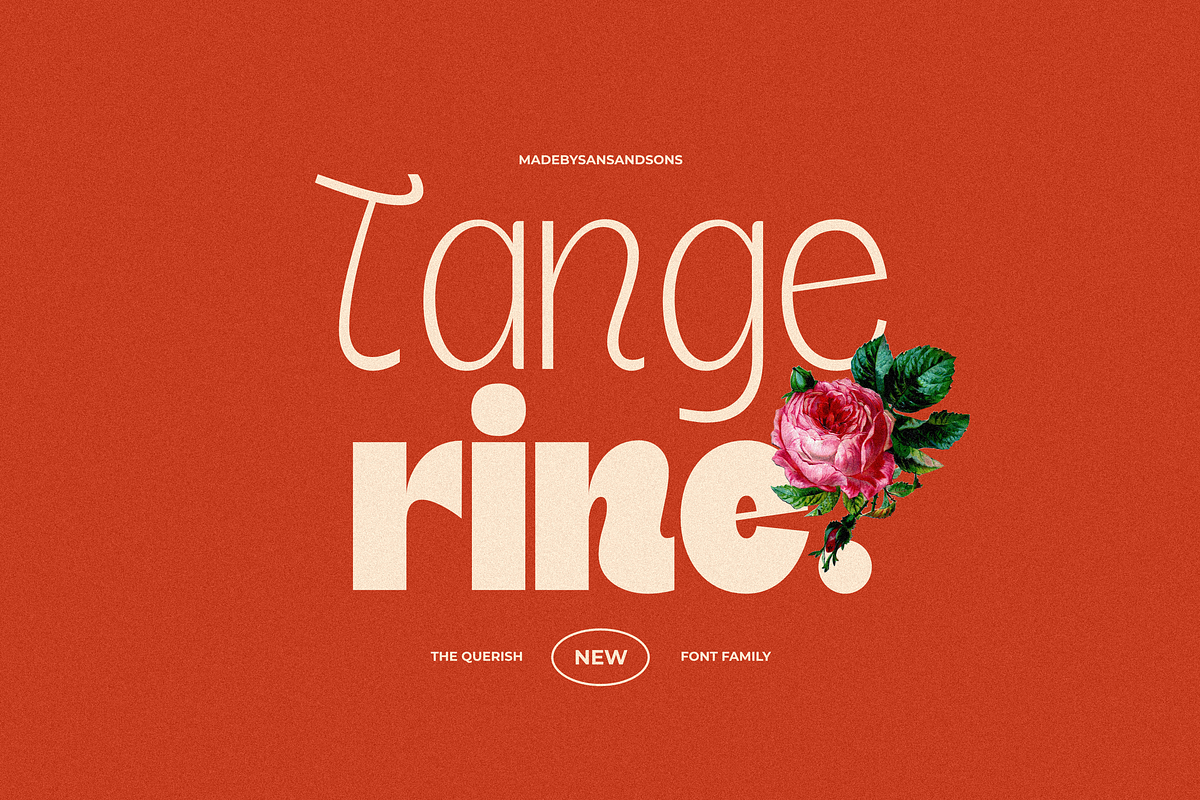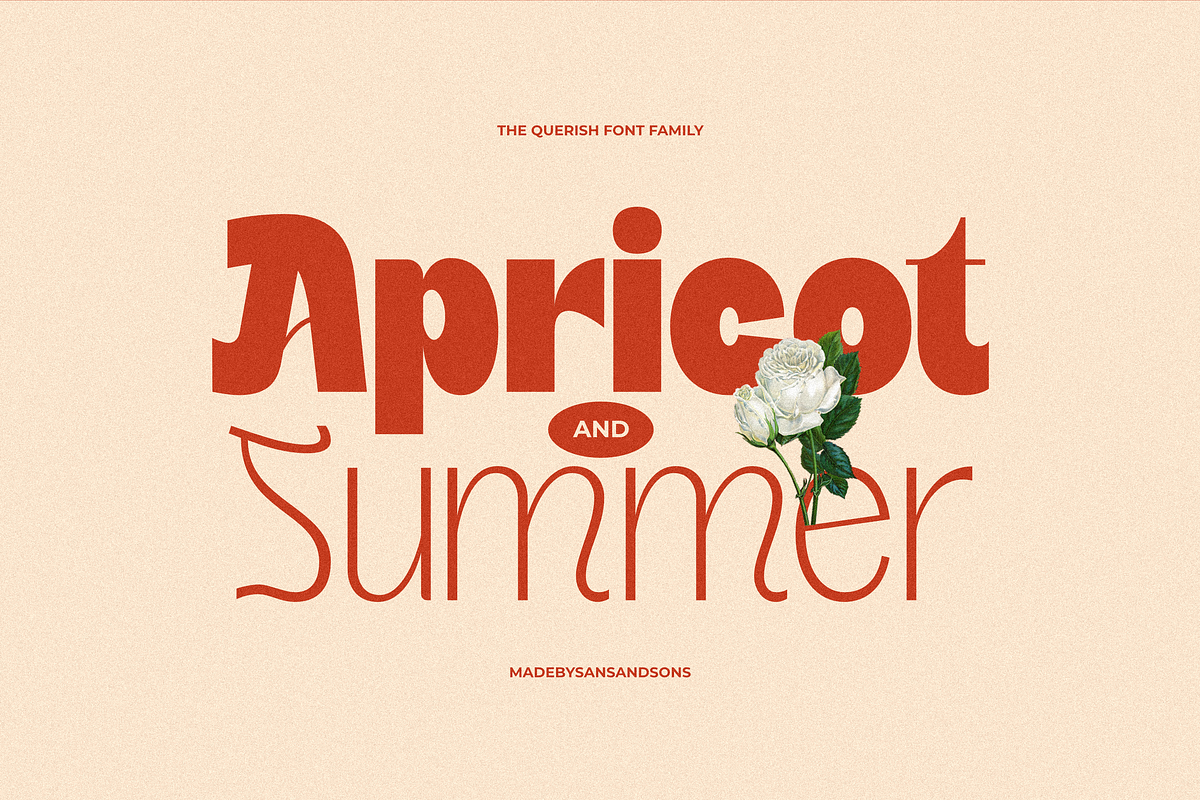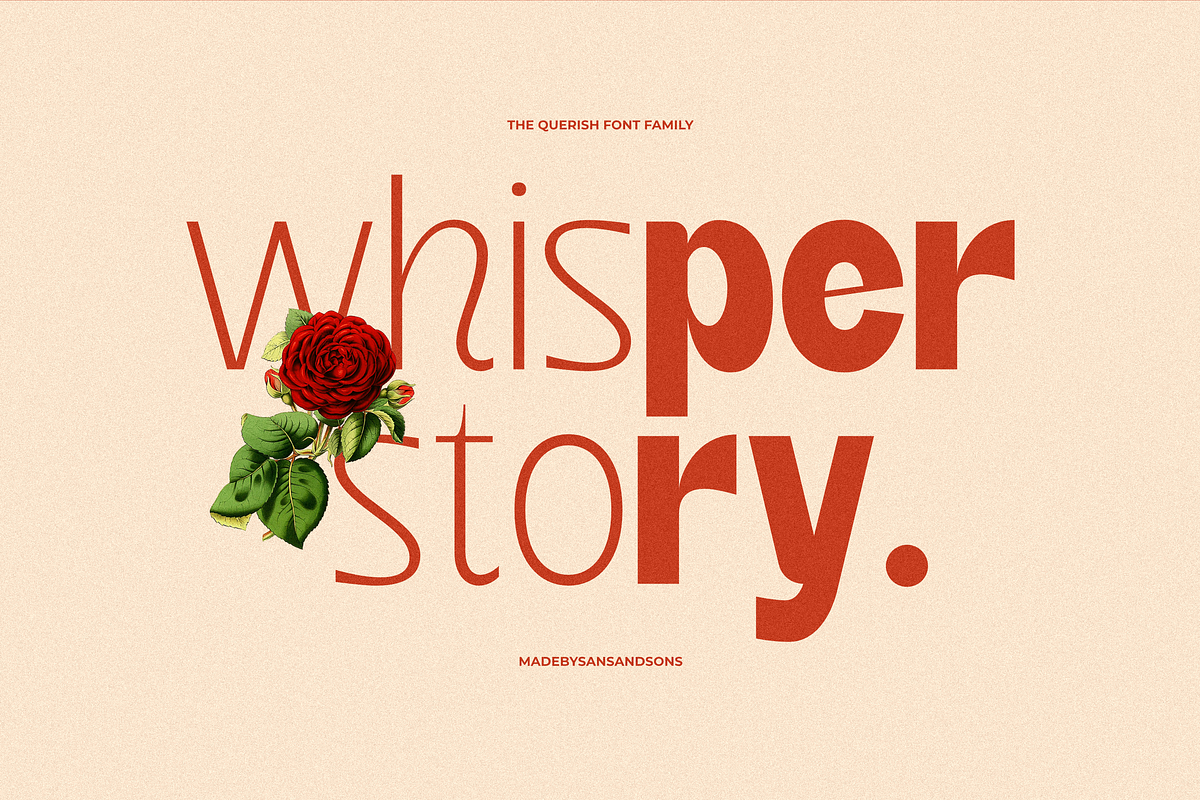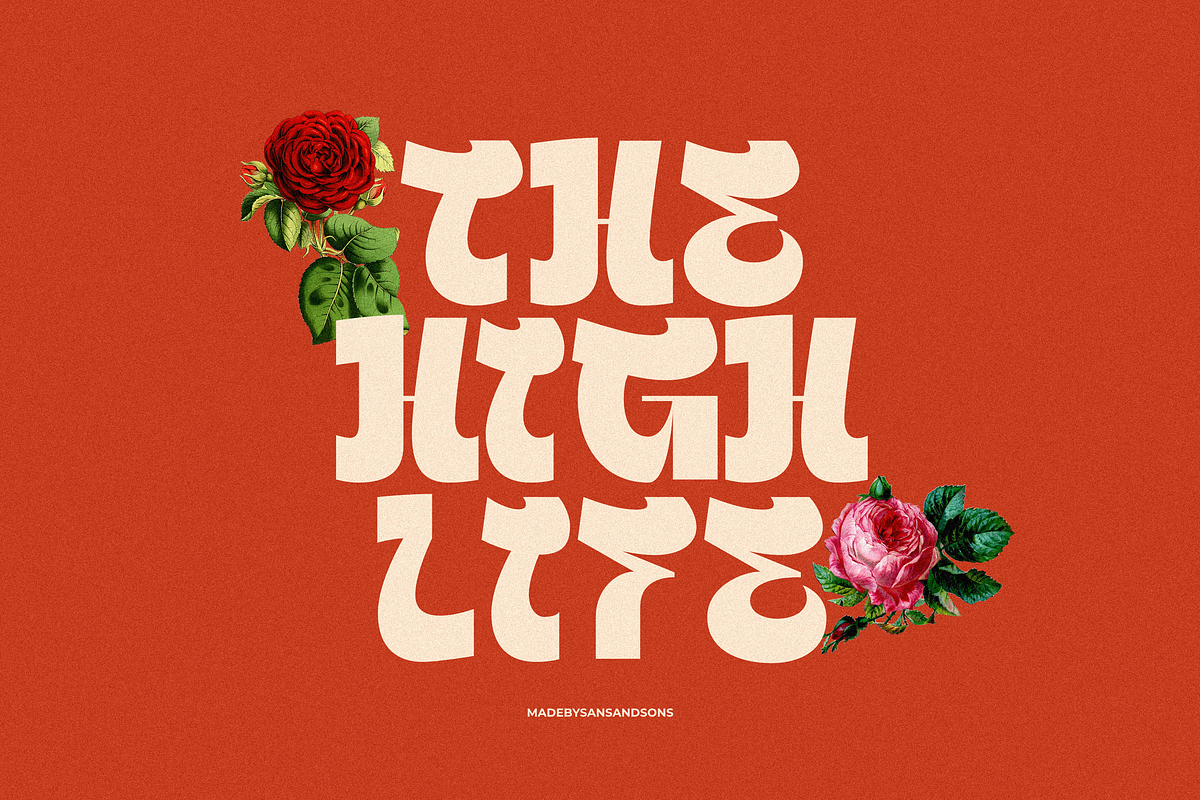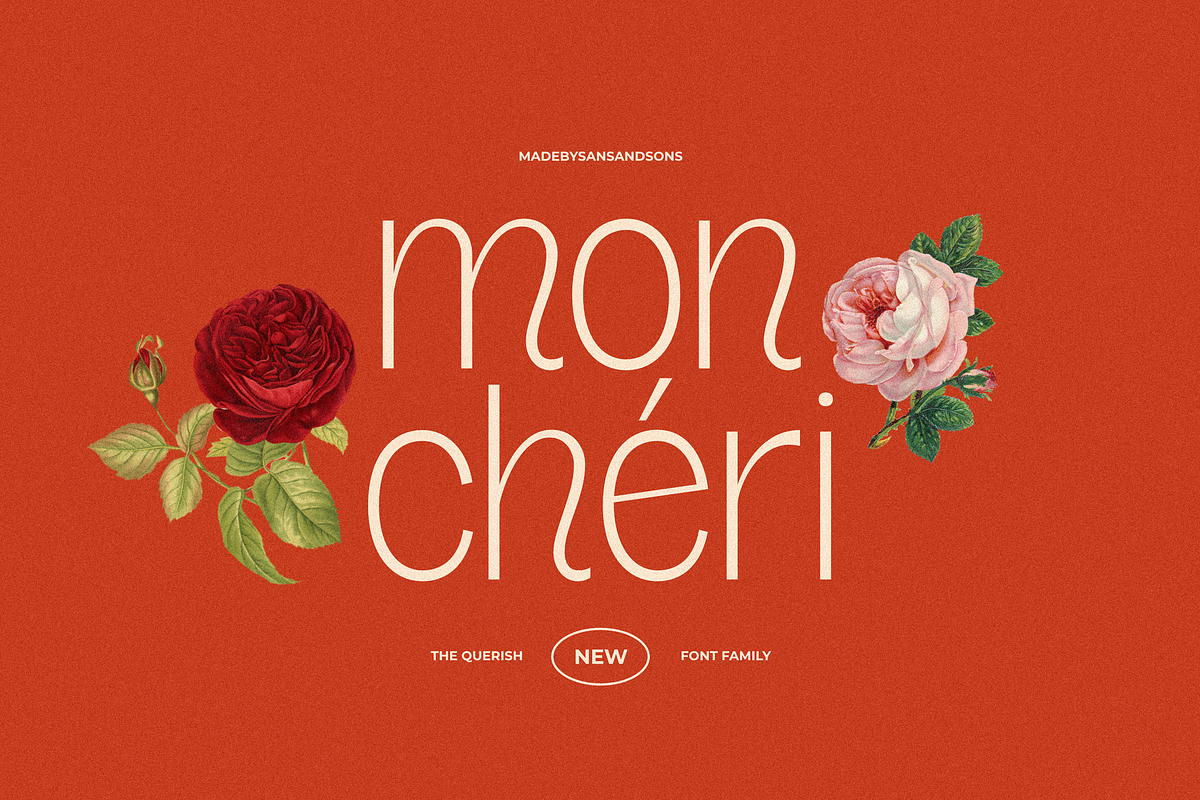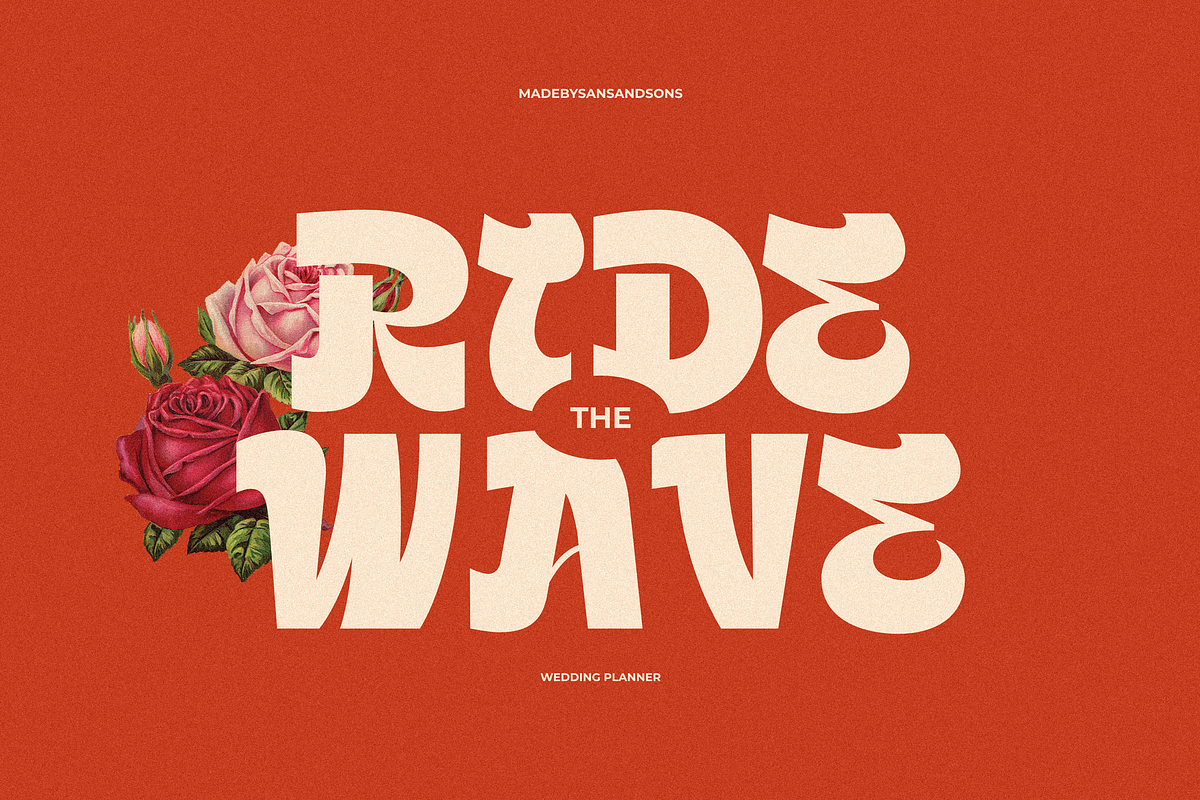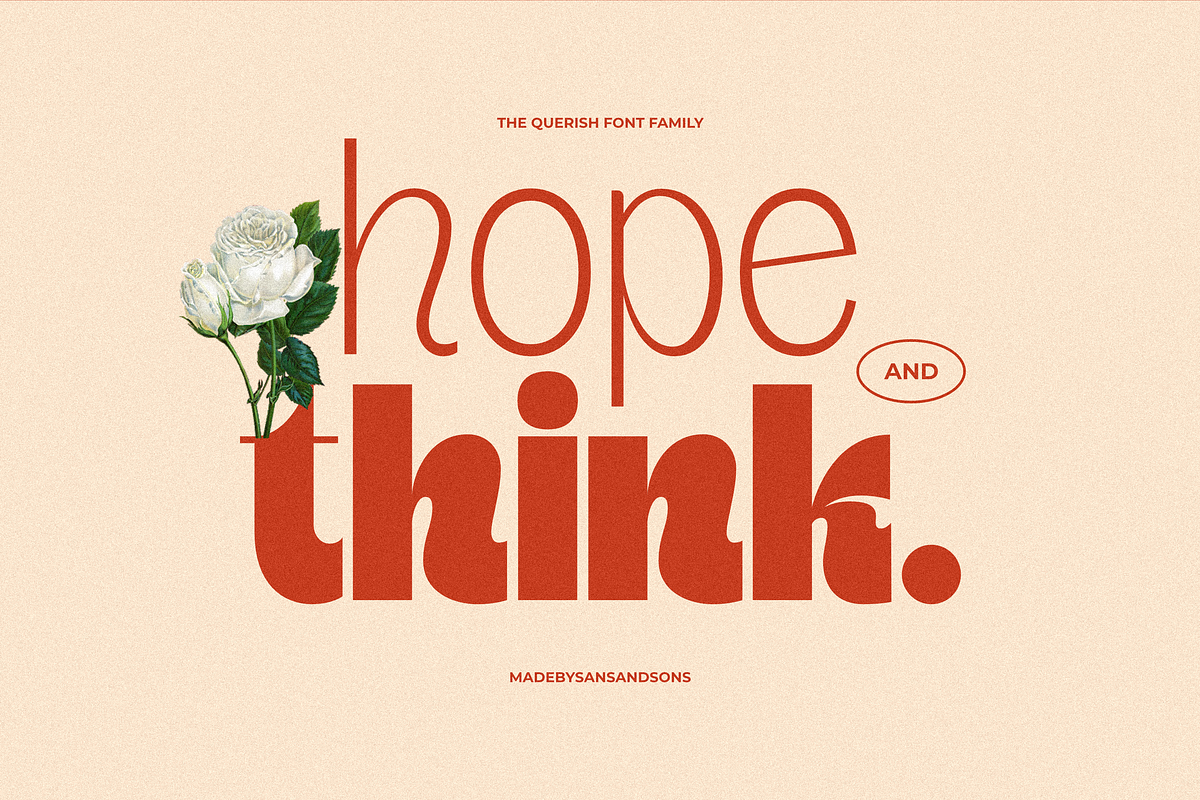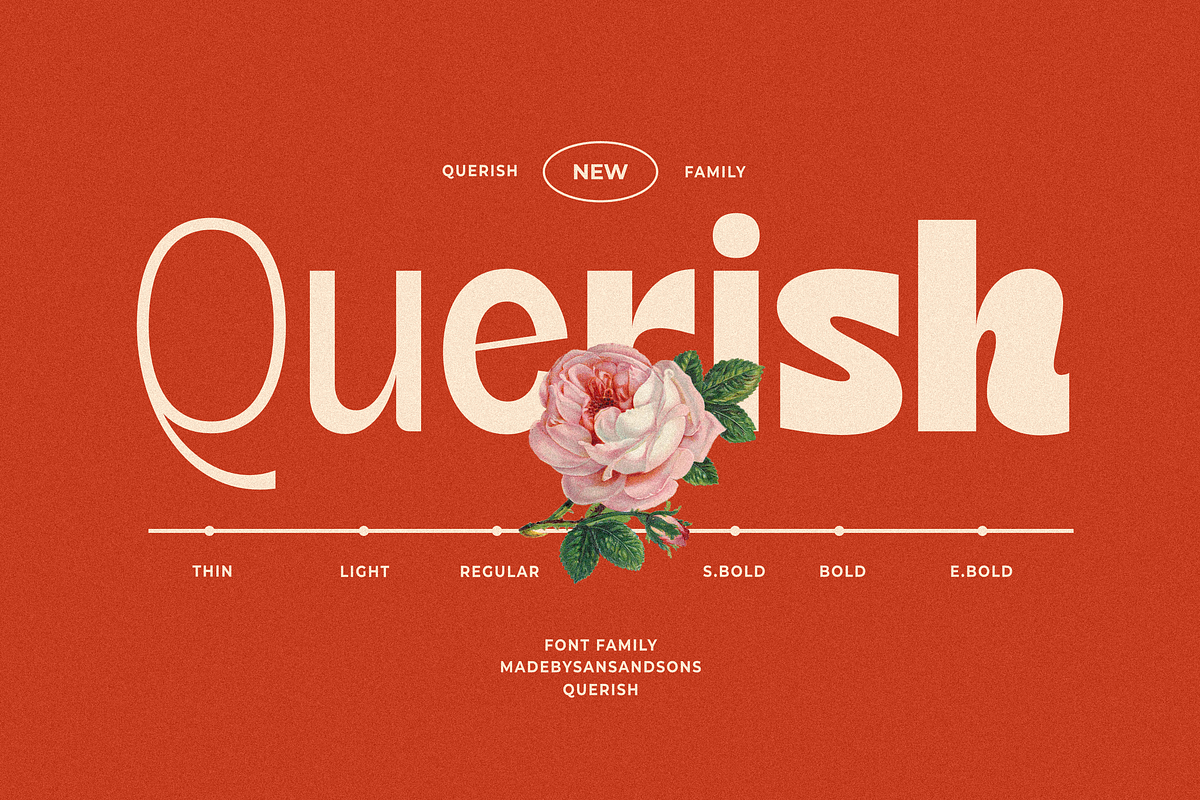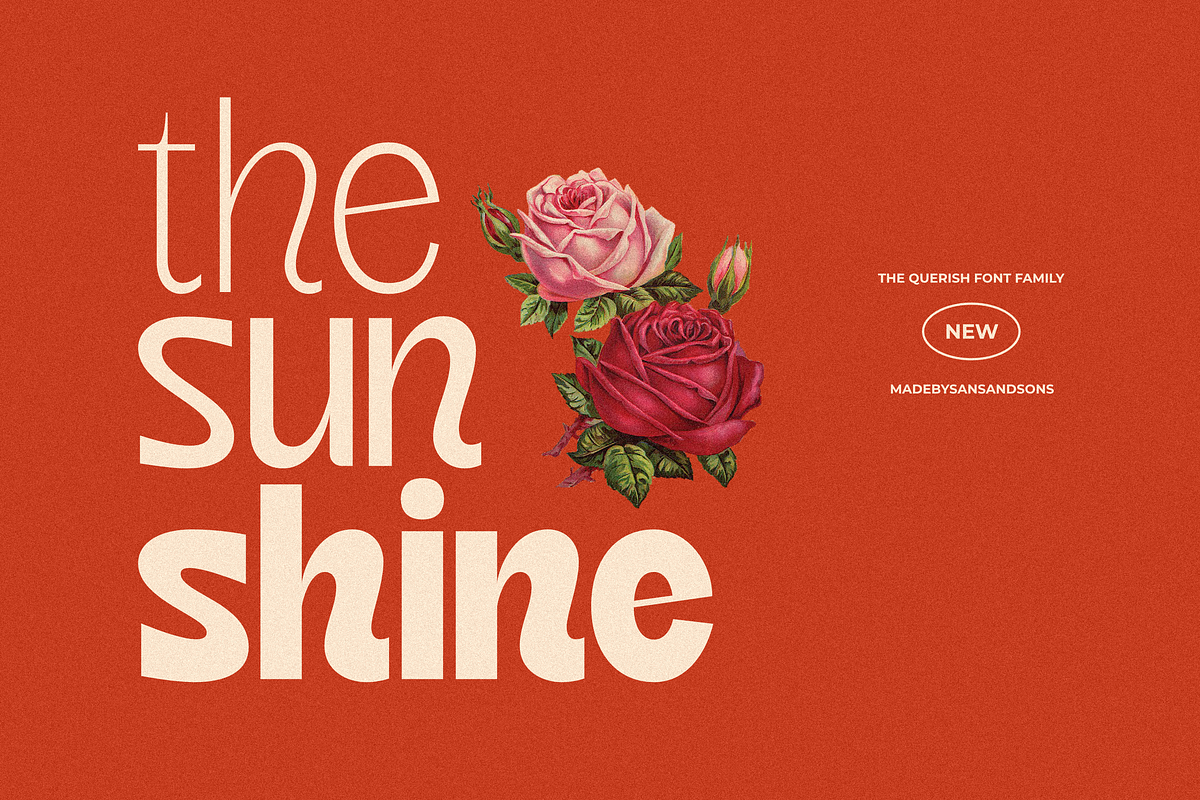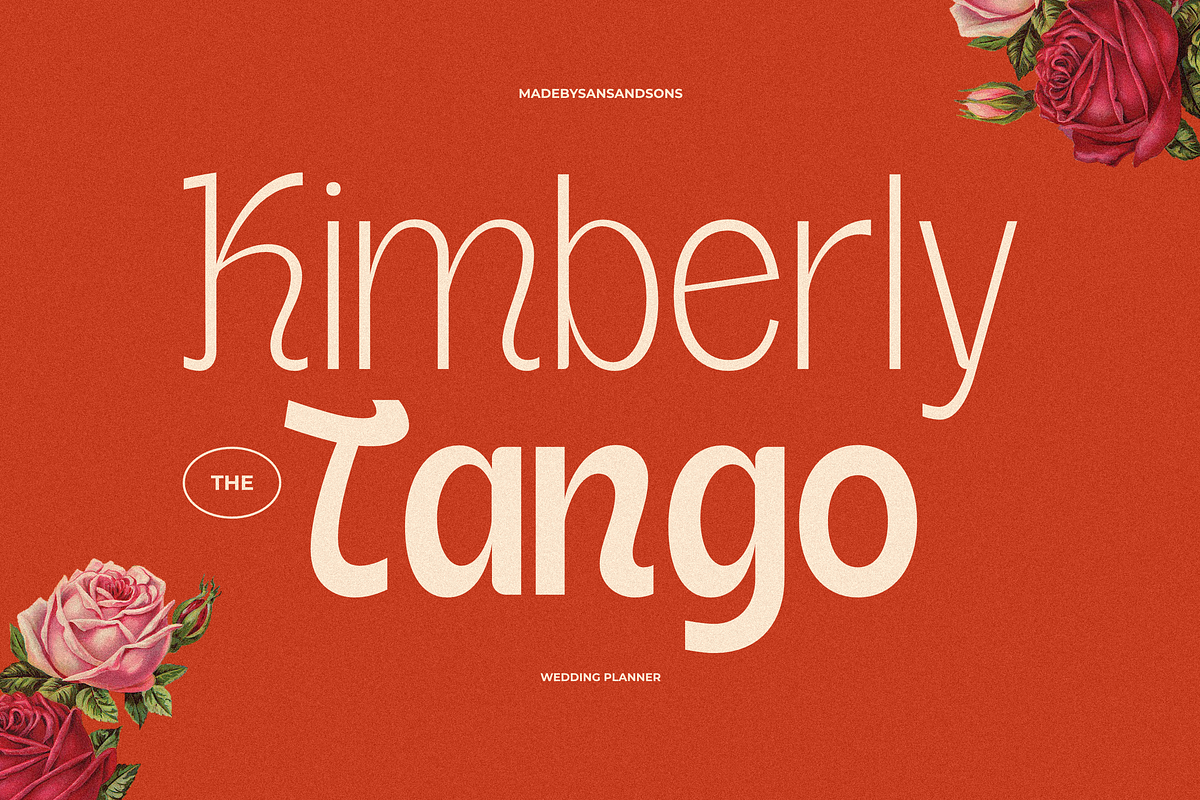
SNS - Querish
SNS Querish by Sans And Sons
Meet SNS Querish — a versatile sans serif font family that seamlessly transitions from thin to extrabold, capturing a contemporary essence with every weight.
With its clean lines and modern aesthetic, this font elevates any design project, whether it’s branding, digital media, or print layouts. The thin weight offers a delicate touch, perfect for minimalist designs, while the extrabold variant commands attention with its robust presence. SNS Querish is the ideal choice for those looking to blend sophistication with approachability. Let each letter resonate with clarity and style, making your designs stand out effortlessly.